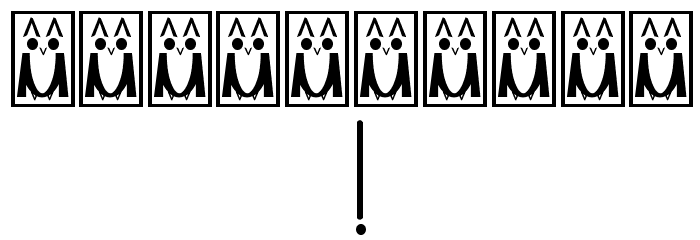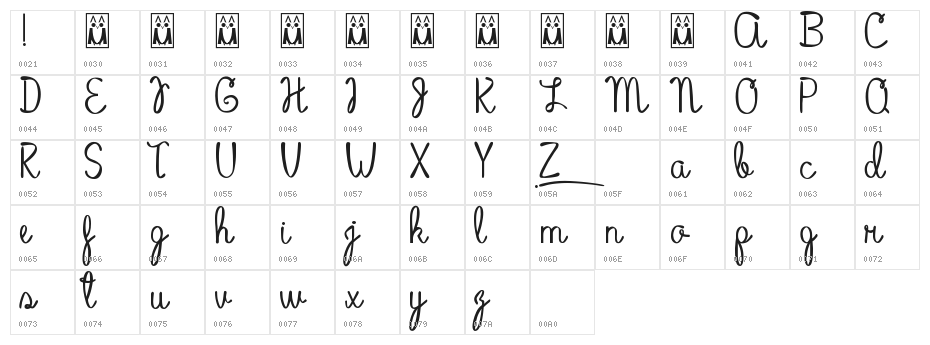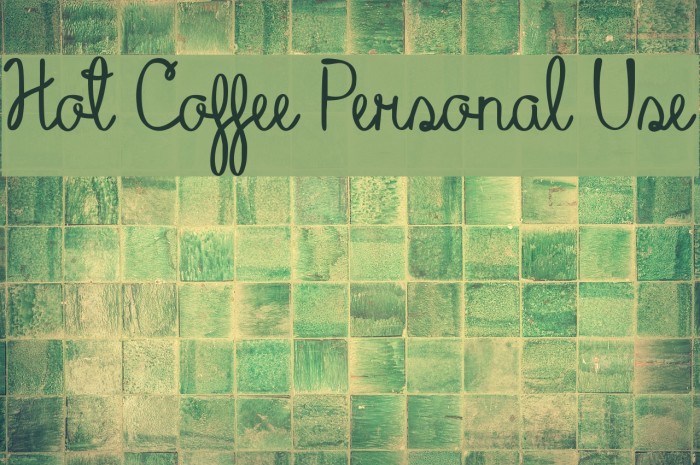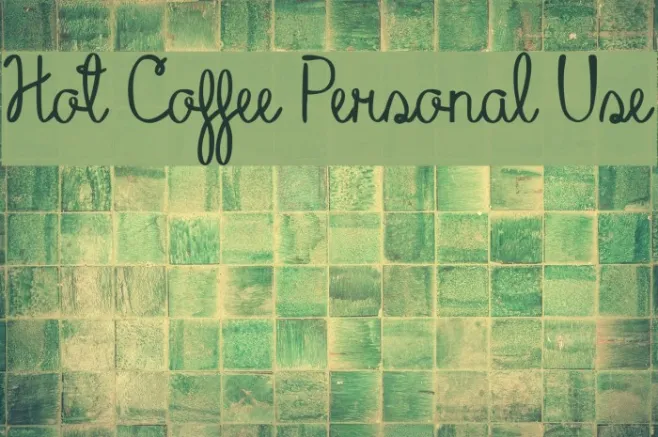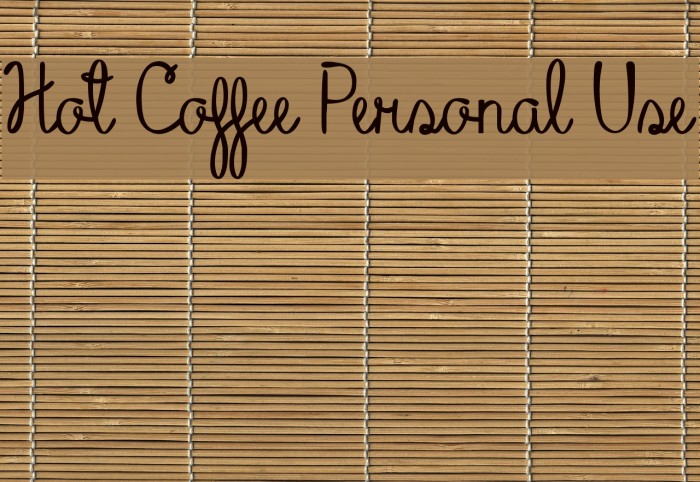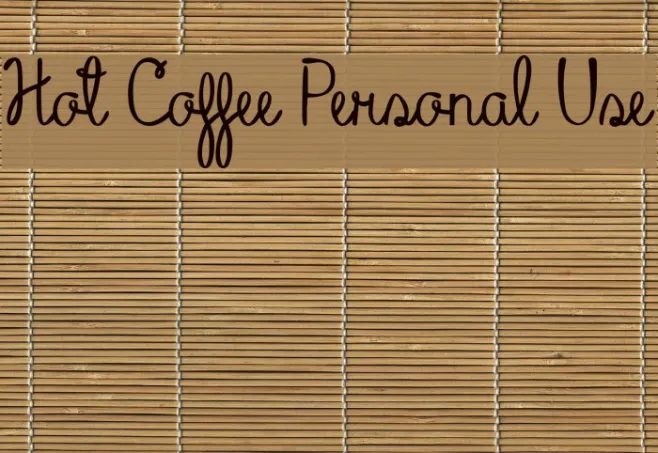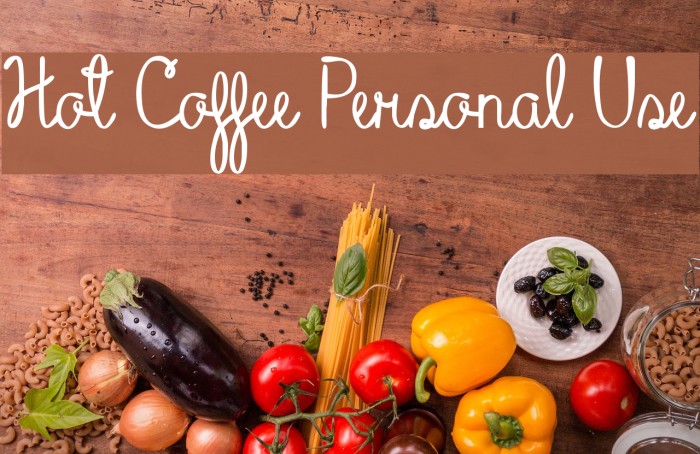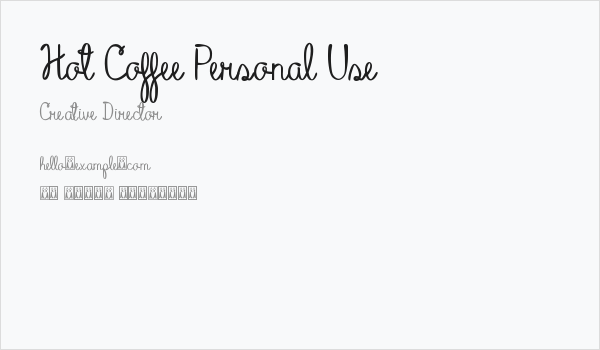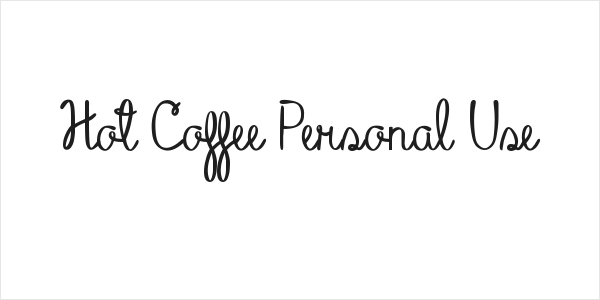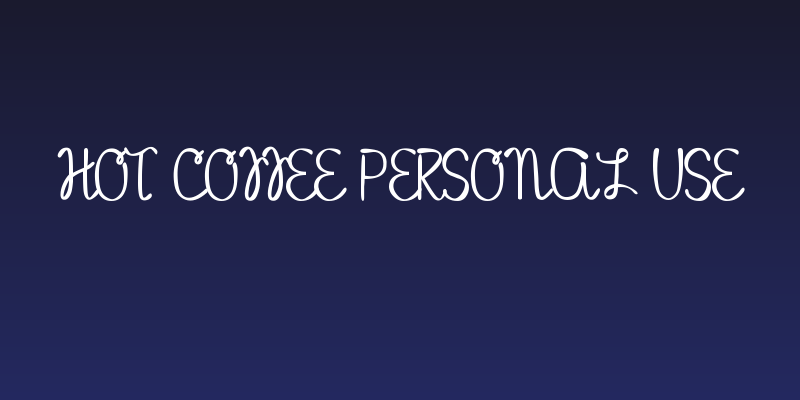
Hot Coffee Personal Use Font
Hot Coffee Personal Use Description
This font features a playful and whimsical script style, characterized by its flowing, interconnected letters that mimic a handwritten aesthetic. The uppercase letters maintain a consistent height and are elegantly curved, while the lowercase letters exhibit a charming looped design, enhancing the font's casual and friendly appearance. The inclusion of decorative elements, such as the penguin icons, adds a unique touch, making it stand out for creative projects. The font's strokes are moderately thick, providing a balanced contrast that ensures readability while maintaining its artistic flair.
| Proposed Projects | Ideal for greeting cards, playful branding, children's books, and creative invitations. |